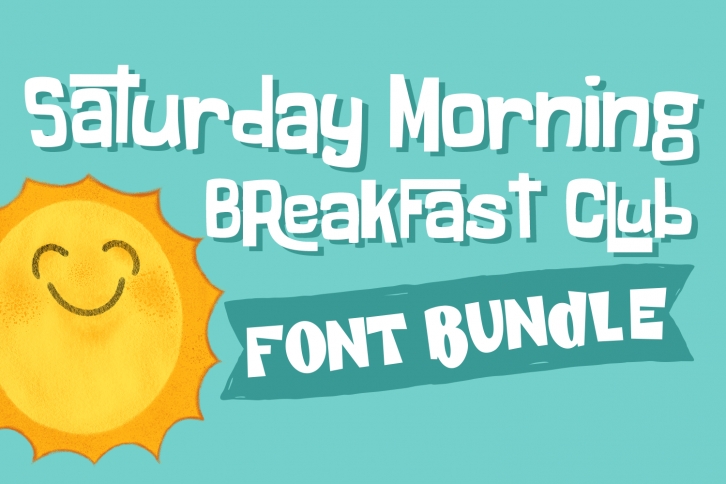
Saturday Morning Breakfast Club Bundle is a great font that was designed by Amber Nest Design. Imagine the amount of combinations you can create using this font! The archive is 11.73 MB and it was released on February 4, 2020. Saturday Morning Breakfast Club Bundle looks beautiful on wedding invitations, greeting cards, logos, posters, labels, t-shirt designs, logos, business cards and is perfect for use in ink or watercolor works, fashion, magazines, packaging and food menus, children's books and more!